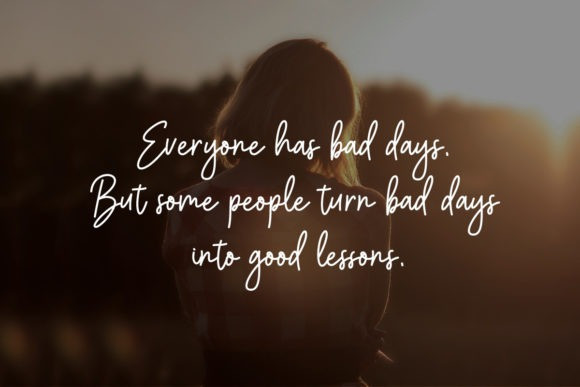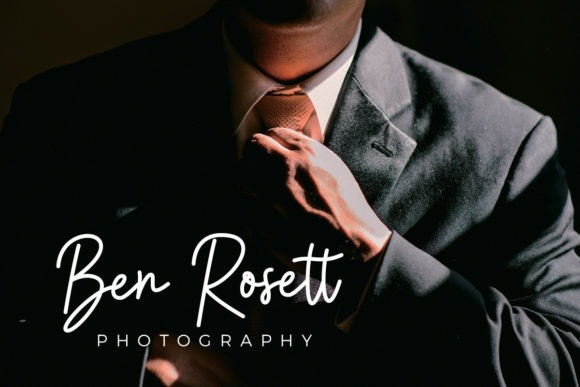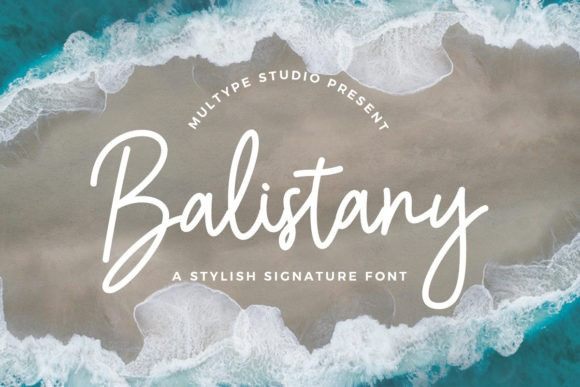
Balistany Handwritten Font
Balistany is a cursive, thin and relaxed script font. It has a classy, elegant and modern look that can be used for logos, branding, invitations, stationery, wedding designs, social media posts, and much more!